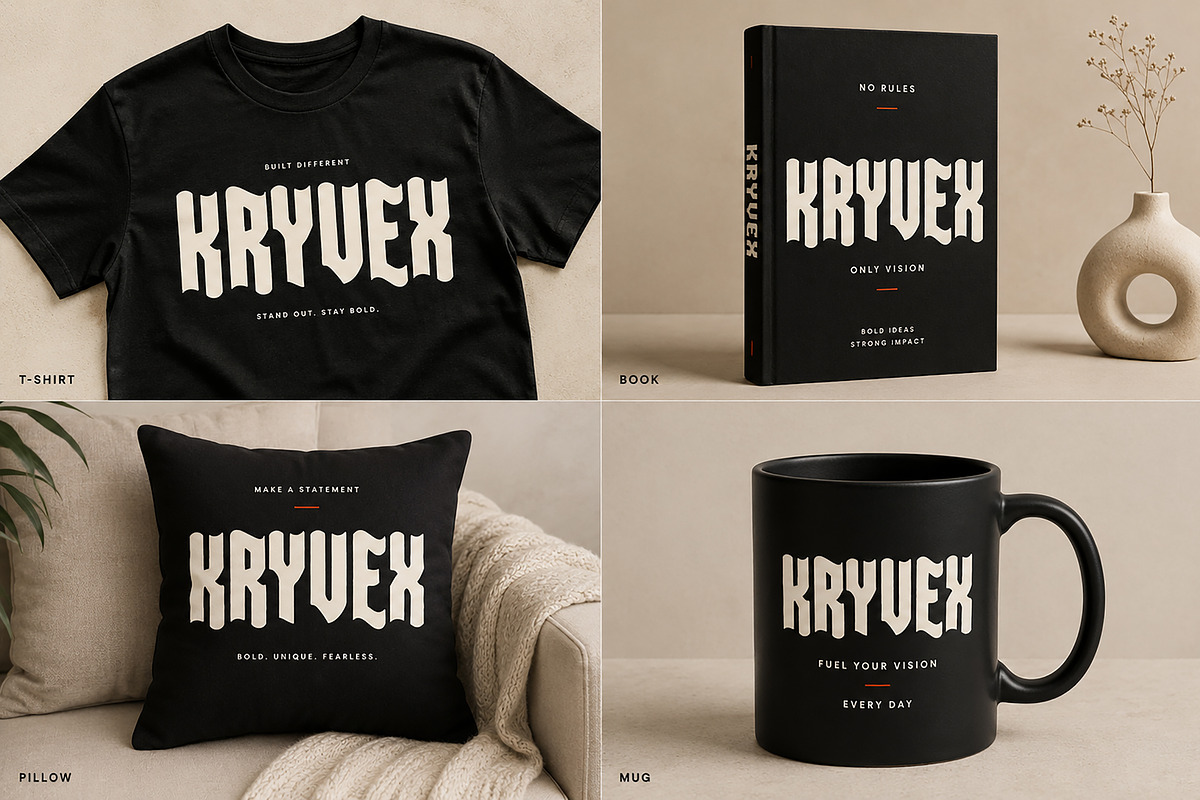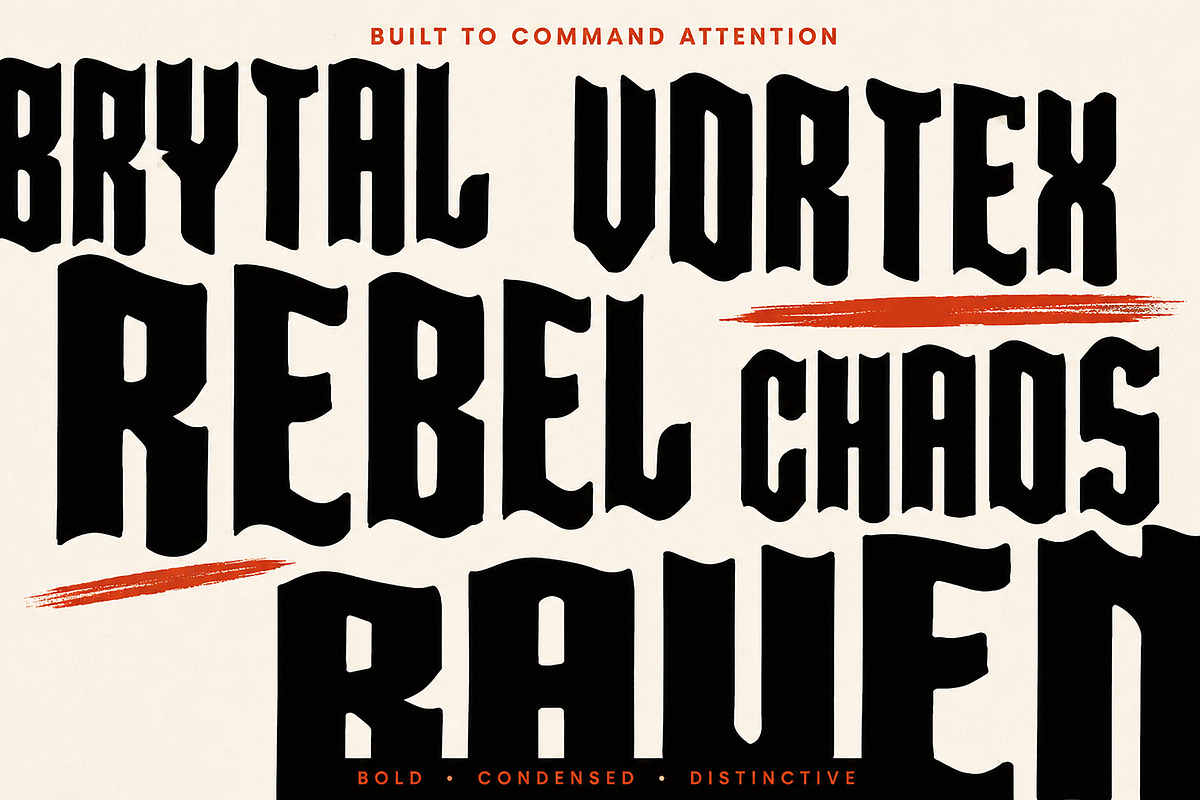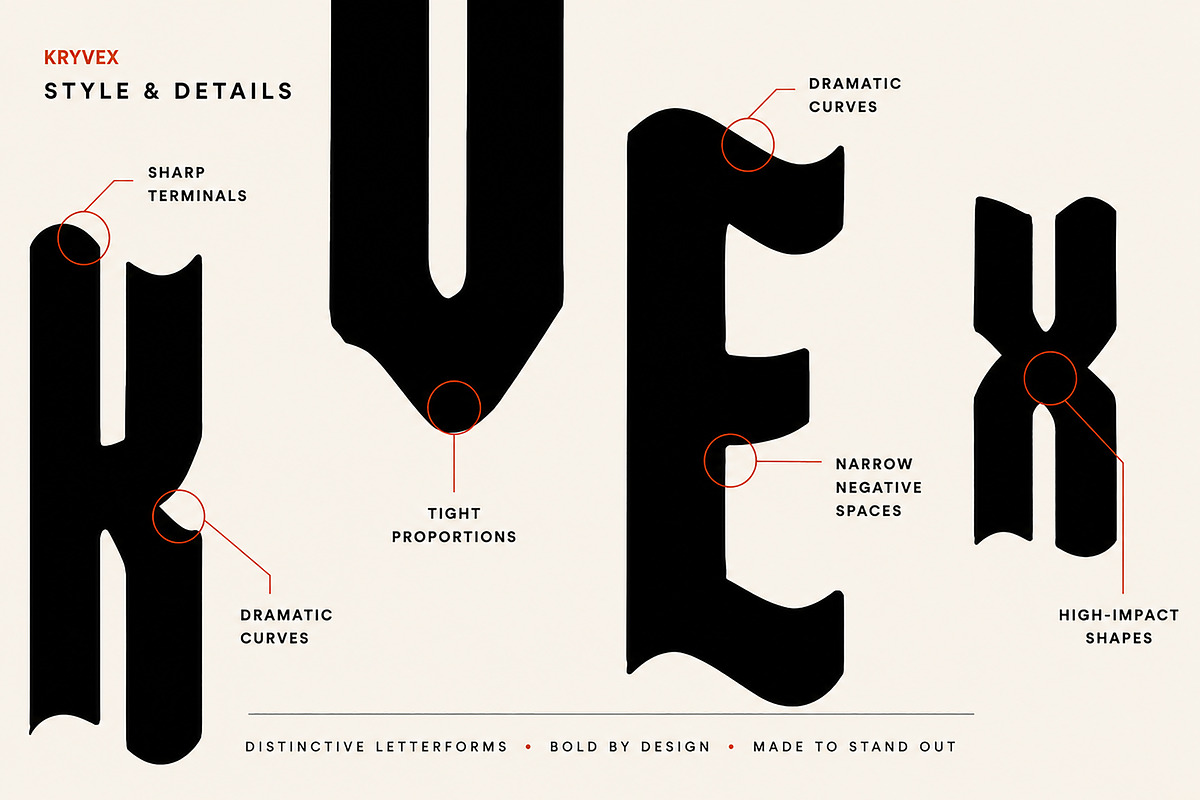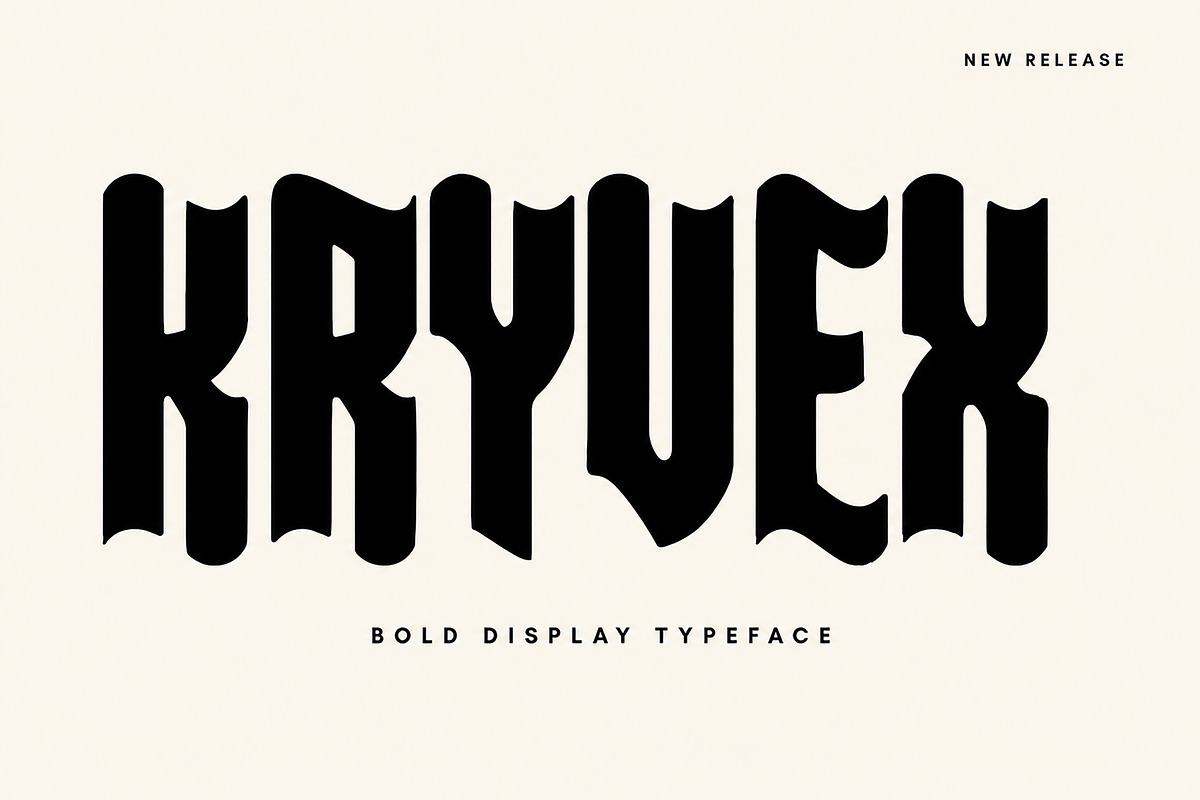
KRYVEX – Bold Gothic Display Font
Make a powerful visual statement with KRYVEX, a bold and distinctive display typeface designed for eye-catching headlines, branding, editorial graphics, posters, apparel, packaging, and creative typography projects.
Featuring a strong condensed structure, dramatic curves, distinctive terminals, and an unconventional letterform style, KRYVEX brings a dark, modern, and rebellious character to your designs. Its bold presence makes it especially effective when you need typography that immediately grabs attention.
KRYVEX works beautifully for logos, brand identities, album artwork, posters, book covers, T-shirt designs, packaging, merchandise, social media graphics, headlines, and other high-impact display applications.
Bold & distinctive display style
Condensed letterform structure
Strong visual presence
Dramatic curves and unique terminals
Designed for impactful typography
Suitable for both digital and print projects
KRYVEX is made for designers who want typography with a strong personality—perfect for projects that need to feel bold, dark, unconventional, and memorable.